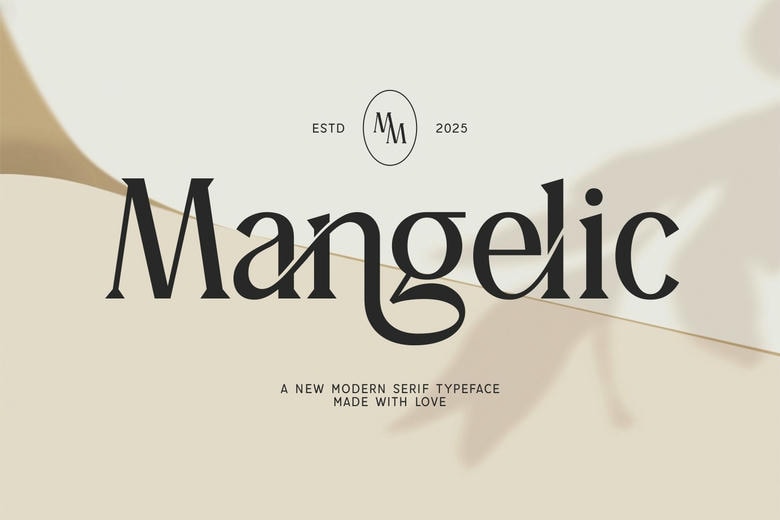
Mangelic Font
Mangelic is a modern serif that is sleek, romantic and combines feminine curves with a thick sense of sophistication. It is an exclusive option to use as a branding font, fashion blogs, and editorial writing that requires clarity and straightforward expression.
Mangelic Serif Font